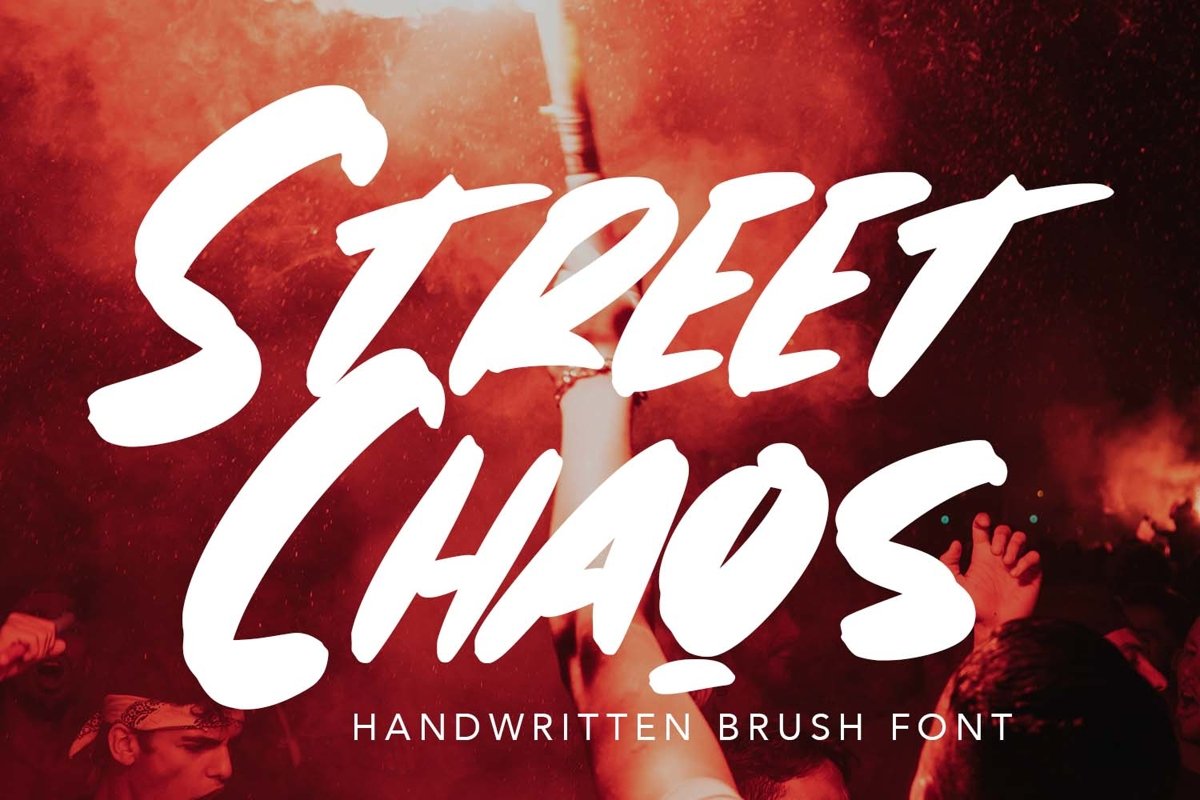
StreetChaos - Brush Fonts that contain lowercase, uppercase, symbol, and also support multi language. There’s a lot ligatures in this font. This Font also comes with ligatures, alternates and many more. this font suitable for fashion, branding, catalog and other design what you want.